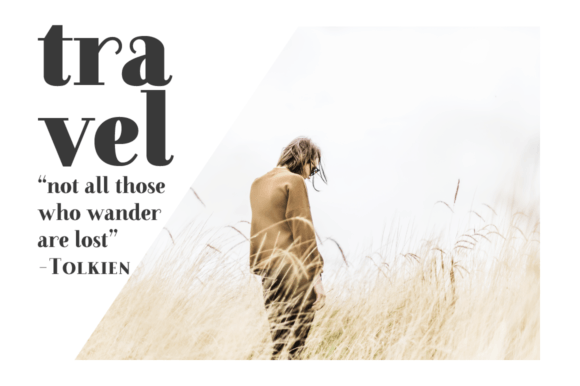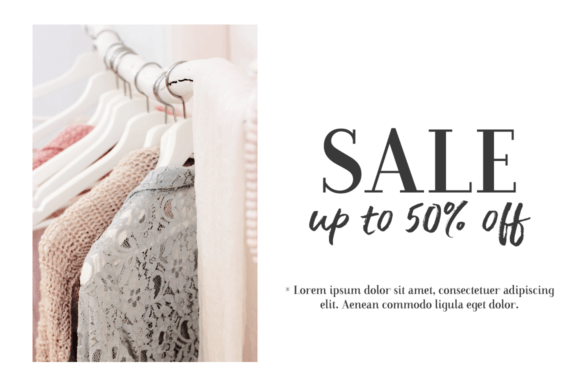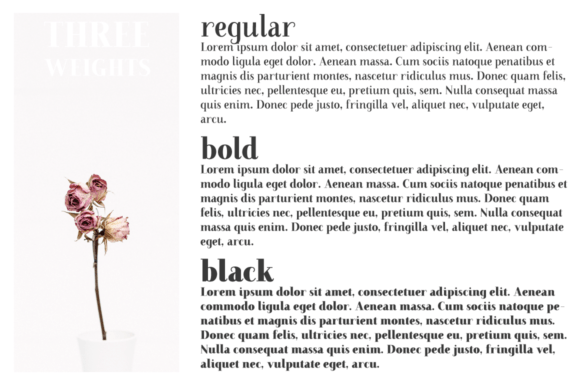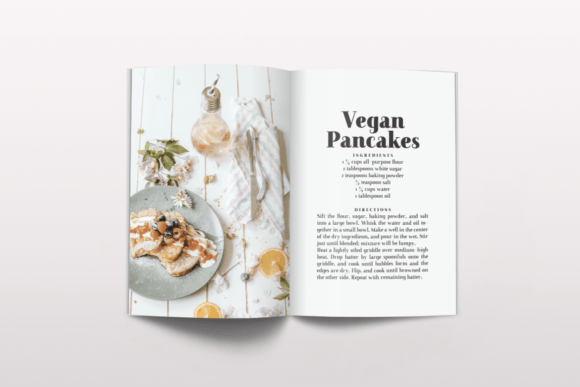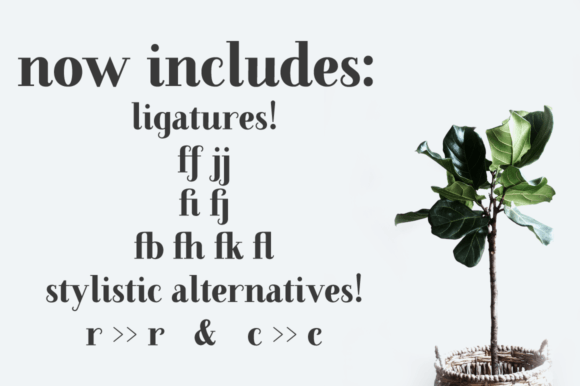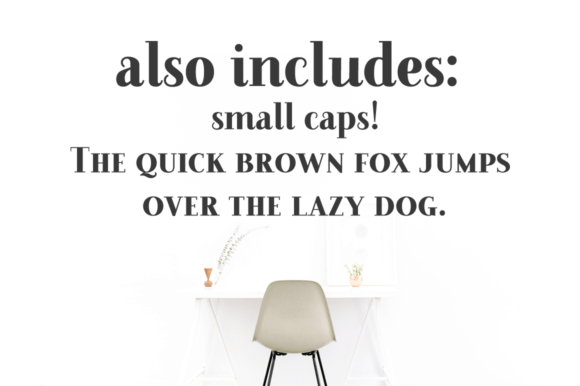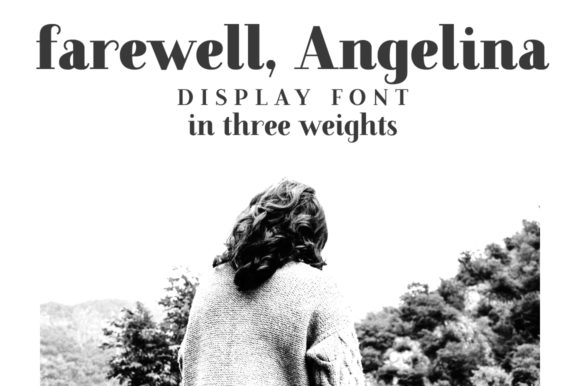
Farewell Angelina Font: Elevate Your Designs with Elegance and Sophistication
In the world of typography, fonts play a crucial role in conveying the tone and personality of a design. For designers and crafters seeking to add a touch of elegance and sophistication to their work, Farewell Angelina Font is an excellent choice. This stunning serif display font boasts a feminine flair, making it perfect for a wide range of applications, from logos and branding to invitations, stationery, and wedding designs.
What is Farewell Angelina Font?
Farewell Angelina Font is an elegant serif display font designed to bring a classy, elegant, and modern look to your designs. Its refined lines, intricate details, and feminine undertones make it an ideal choice for designers who want to create sophisticated and eye-catching designs. Whether you’re working on a logo, branding project, or social media post, Farewell Angelina Font is sure to elevate your work.
Key Features of Farewell Angelina Font
- Elegant Serif Design: Farewell Angelina Font features a beautiful serif design that exudes elegance and sophistication.
- Feminine Flair: The font’s feminine undertones make it perfect for designs that require a touch of elegance and refinement.
- Classy and Modern Look: The font’s clean lines, refined details, and modern aesthetic make it suitable for a wide range of design applications.
- Versatile: Farewell Angelina Font can be used for logos, branding, invitations, stationery, wedding designs, social media posts, and much more.
Use Cases for Farewell Angelina Font
Farewell Angelina Font is a versatile font that can be used in various design applications. Here are some use cases:
- Logos and Branding: Create a lasting impression with a logo that exudes elegance and sophistication.
- Invitations and Stationery: Add a touch of refinement to your invitations, greeting cards, and stationery.
- Wedding Designs: Make your wedding designs, such as wedding invitations, programs, and place cards, truly special with Farewell Angelina Font.
- Social Media Posts: Elevate your social media posts with a font that is both elegant and easy to read.
Why Choose Farewell Angelina Font?
With so many fonts available, why choose Farewell Angelina Font? Here are a few reasons:
- Unique and Distinctive: Farewell Angelina Font is a unique and distinctive font that will set your designs apart from the rest.
- Elegant and Sophisticated: The font’s elegant and sophisticated design makes it perfect for designers who want to create high-end designs.
- Easy to Read: Despite its elegant design, Farewell Angelina Font is easy to read, making it suitable for body text and headlines.
In conclusion, Farewell Angelina Font is an excellent choice for designers and crafters seeking to add a touch of elegance and sophistication to their work. With its elegant serif design, feminine flair, and versatile use cases, this font is sure to elevate your designs and make them stand out. Whether you’re working on a logo, branding project, or social media post, Farewell Angelina Font is a great choice.